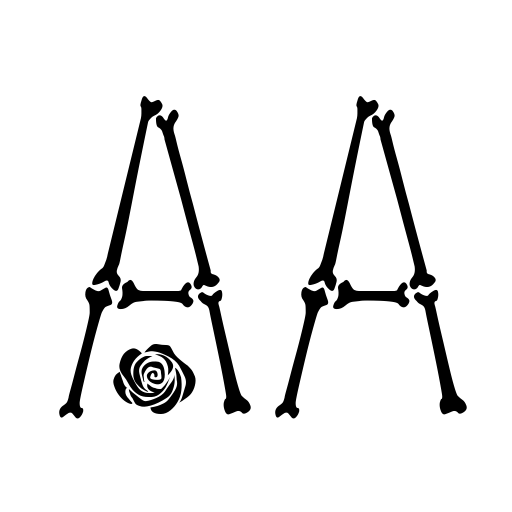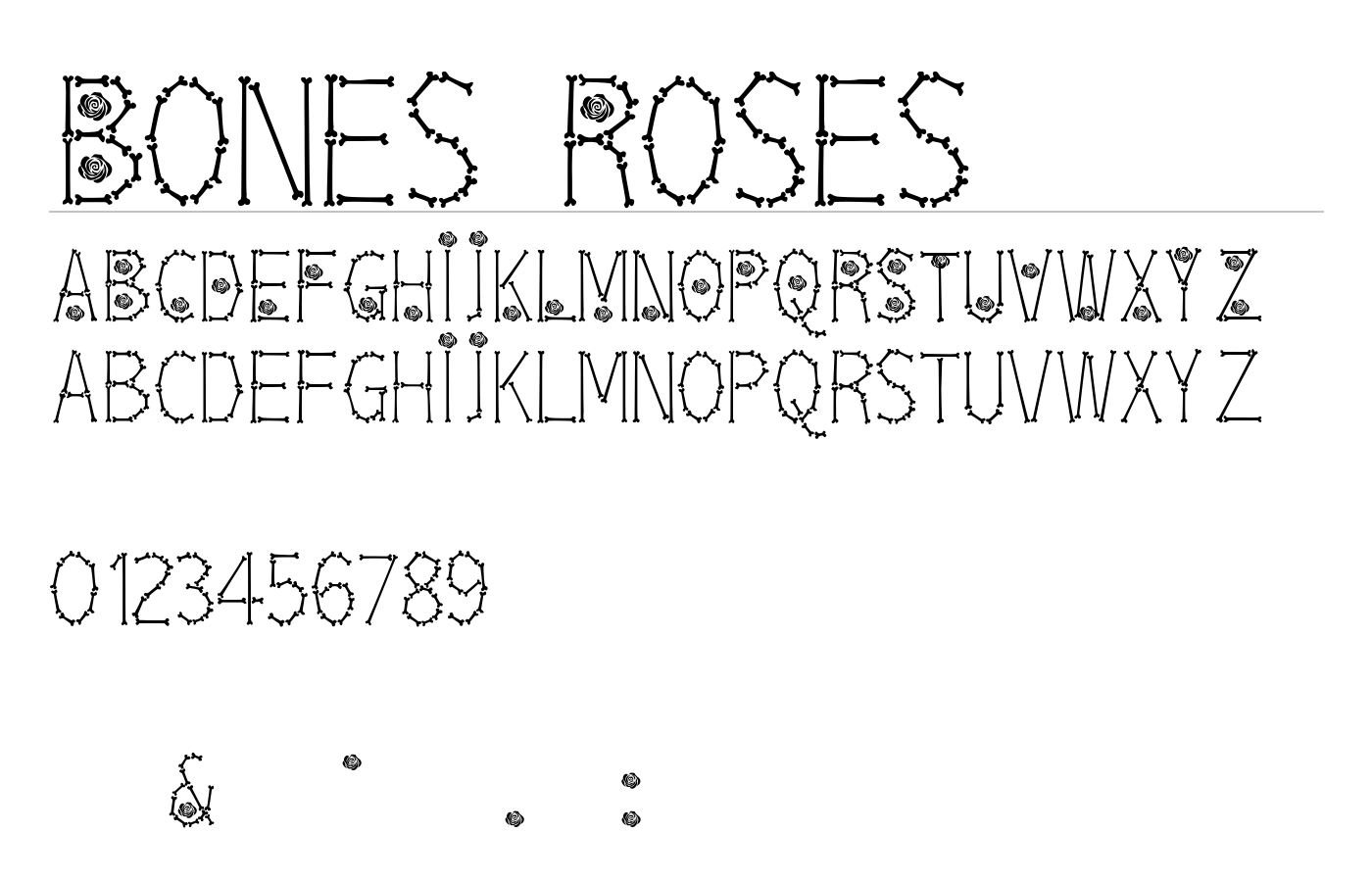
Bones Roses is a decorative, all-caps sans serif font with a whimsical, hand-drawn style featuring delicate bone-like strokes and small rose illustrations integrated into select letters. Its light and airy structure makes it playful and unique, ideal for creative projects needing a touch of gothic charm or artistic flair. This font works well for headlines, posters, and branding that aims to blend elegance with a slightly spooky, botanical vibe.
Bones Roses Font
About Bones Roses Font